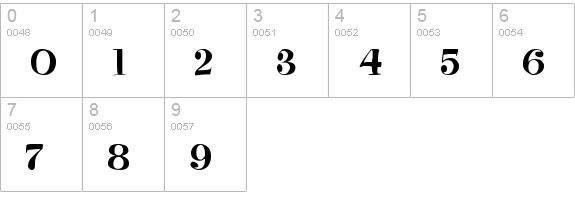
Moxie Font Details
Moxie font is a captivating and versatile typeface that exudes confidence and charm. With its elegant curves and stylish design, Moxie is sure to make a statement in any project. This font is perfect for adding a touch of sophistication to your designs, whether it be for branding, advertising, or any creative endeavor. The best part? Moxie font is available for free download at FontsMarket.com. This means you can easily access this beautiful typeface and enhance your projects without any cost. Don't miss out on the opportunity to elevate your design with the timeless appeal of Moxie font. Download it now and let your creativity shine!